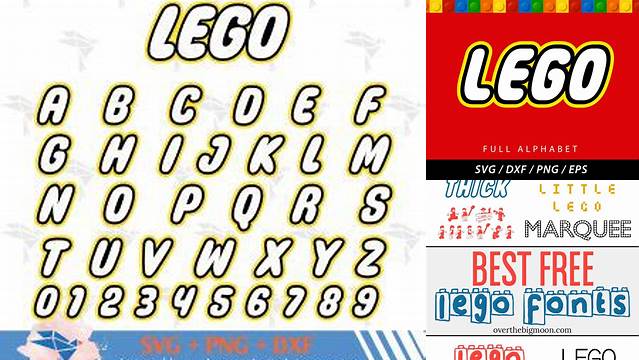
Lego Font SVG: Your Ultimate Guide
Unveiling the Magic of Lego Font SVG Files
Hey guys! Ever scrolled through your feed and spotted those instantly recognizable LEGO builds or creations? You know, the ones that scream 'fun' and 'creativity'? A big part of that visual appeal often comes down to the typography used, and when we talk about that classic LEGO look, we're often thinking about the Lego font SVG. Now, SVG, or Scalable Vector Graphics, is a super cool format for images. Unlike regular pixel-based images (like JPEGs or PNGs), SVGs are based on mathematical equations. This means you can scale them up or down to any size without losing a single bit of quality. Pretty neat, right? This makes Lego font SVG files incredibly versatile for all sorts of projects. Whether you're designing a custom t-shirt, crafting a birthday invitation, building a personal website, or even creating a fan-made LEGO manual, having access to these high-quality, scalable fonts is a game-changer. You're not limited by resolution; your designs will look crisp and clean whether they're tiny icons or massive banners. So, in this ultimate guide, we're diving deep into everything Lego font SVG, from where to find them to how you can best utilize them for your creative endeavors. Get ready to add that iconic LEGO charm to your projects!
The Iconic LEGO Typography: A Closer Look
Let's talk about what makes the LEGO font so darn special, guys. It’s not just any old typeface; it's a huge part of the brand's identity, instantly evoking feelings of childhood, play, and boundless imagination. The original LEGO typeface, often referred to as LEGO Type, has a very distinctive look. It's bold, slightly rounded, and has this incredibly friendly and approachable feel. Think about those classic LEGO instruction booklets or the packaging you grew up with – that's the font we're talking about! When people search for 'Lego font SVG,' they're usually looking for digital versions of this iconic style that they can use in their own projects. The beauty of using an SVG format for this font is, as we touched upon, its scalability. This means that whether you're using it for a small logo on a digital design or printing it large on a poster, the lines stay sharp, and the characters remain perfectly formed. It’s this consistency and visual recognition that makes the LEGO font so powerful. It taps into our collective nostalgia and creates an immediate connection. So, when you're aiming for that authentic LEGO vibe in your designs, finding a high-quality Lego font SVG is your first step to capturing that magic. It’s more than just letters; it’s a symbol of creativity and fun.
Why SVG is King for Lego Font Usage
So, why all the fuss about using Lego font SVG files specifically? It boils down to the technical advantages that SVG format offers, which are particularly beneficial when dealing with iconic and potentially complex letterforms like the LEGO font. Unlike raster images (like JPG or PNG) which are made up of pixels, SVGs are vector-based. This means they are defined by mathematical equations describing lines, curves, and shapes. What’s the big deal? Well, it allows you to resize them infinitely without any loss of quality. Imagine you download a Lego font SVG for your project. You can make it as small as an icon for a website button, and it will look perfectly sharp. Then, you can blow it up to cover an entire billboard, and it will still look just as crisp. No pixelation, no blurriness – just clean, sharp edges every single time. This is absolutely crucial for branding and design consistency. Furthermore, SVG files are typically smaller in file size compared to high-resolution raster images, making them load faster on websites. They are also easily editable with vector graphics software like Adobe Illustrator or Inkscape, allowing you to tweak colors, sizes, and even modify individual letter elements if needed (though always be mindful of copyright when using branded fonts!). For anyone serious about incorporating that classic LEGO aesthetic into their digital or print work, understanding the power of the Lego font SVG format is key to achieving professional and scalable results. It's the smart choice for modern design.
Finding Authentic Lego Font SVG Resources Online
Alright, guys, you're probably wondering, 'Where on earth do I get my hands on these awesome Lego font SVG files?' It's a common question, and the truth is, finding official LEGO fonts in SVG format for free public use can be a bit tricky due to trademark and licensing reasons. LEGO, like most major brands, protects its intellectual property. However, there are several avenues you can explore to get that LEGO-inspired look. Many talented graphic designers create and share LEGO-style fonts, often available as SVG downloads. Websites dedicated to free font resources, as well as marketplaces like Etsy or Creative Market, are great places to start your search. Just type in 'LEGO style font SVG' or 'building block font SVG' and see what pops up! You might find fonts that are heavily inspired by the official LEGO typeface, offering a very similar aesthetic. Always pay attention to the licensing terms associated with these unofficial fonts. Some might be free for personal use only, while others may require a purchase or attribution for commercial projects. Keep an eye out for fan-made compilations or communities where designers share resources. Remember, while these aren't official LEGO products, they can provide that distinctive, playful vibe you're looking for in your Lego font SVG projects. Do your due diligence, check the licenses, and you'll likely find a fantastic option to bring your creative ideas to life!
Creating Your Own Lego-Style Font in SVG
Feeling inspired and want to try your hand at crafting your own unique building block letters? That's awesome, guys! Creating your own Lego font SVG can be a super rewarding experience, especially if you want something completely original or tailored precisely to your project. The process usually involves using vector graphics software, with Adobe Illustrator being the industry standard, but free alternatives like Inkscape work wonders too. Start by sketching out your letterforms. Think about the classic LEGO style: bold, clean lines, slightly rounded corners, and a solid, blocky appearance. You'll want to maintain consistency across all letters. Once you have your designs, you'll translate them into vector shapes within your software. Use tools like the pen tool to draw precise paths, and then fill them to create the solid letterforms. Pay attention to stroke weights and corner styles to achieve that distinct LEGO feel. The real magic happens when you save each letter as an individual SVG file. This allows you to import them easily into other projects or even combine them to form words and phrases. You can experiment with different color palettes, add subtle textures, or even create variations of the letters. While this takes time and practice, mastering the creation of your own Lego font SVG gives you ultimate creative control and ensures you have a unique asset that truly stands out. Plus, it’s a fantastic way to hone your digital art skills!
Best Practices for Using Lego Font SVG in Designs
Alright, let's talk about making your Lego font SVG pop in your designs, guys. Once you've got your hands on these awesome vector files, how do you use them effectively? First off, consistency is key. If you're using a LEGO-style font, stick to it throughout your project for a cohesive look. Don't mix it with too many other contrasting fonts, or it might lose its impact. Think about the classic LEGO aesthetic: bold, clear, and playful. Use colors that complement this vibe – bright, primary colors often work wonders, but don't be afraid to get creative! Remember that SVGs are scalable, so feel free to resize them to perfectly fit your layout. Use them for headings, logos, call-to-action buttons, or even decorative elements. Don't overdo it, though! Sometimes, less is more. A well-placed LEGO-style font can grab attention, but an entire page saturated with it might become overwhelming. Consider the context of your design. Is it for a kids' party invitation? A fan blog? A retro gaming site? Tailor your usage accordingly. Also, when working with SVG files, ensure you understand the software you're using. Basic knowledge of vector editing can help you adjust colors or spacing if needed. Finally, always be mindful of the source and license of your Lego font SVG. Ensure you have the right to use it for your intended purpose, especially for commercial projects. Following these best practices will ensure your designs look professional, impactful, and truly capture that beloved LEGO spirit.
Incorporating Lego Font SVG into Digital Projects
So you've got your awesome Lego font SVG files, and you're ready to level up your digital creations, right? Let's dive into how you can seamlessly integrate these versatile graphics into your online world. Websites are a prime candidate! You can use LEGO-style fonts for your main headings to give your site an immediate, playful personality. Imagine a blog about toys or creative hobbies – a bold, LEGO-inspired font for the title instantly sets the tone. Because SVGs are scalable, they look fantastic on any screen size, from desktops to smartphones, ensuring your design remains crisp and professional everywhere. Social media is another huge win. Craft eye-catching banners for your profiles or create engaging posts with text overlays that use that iconic blocky font. Think about creating unique Instagram story graphics or Facebook cover photos. For presentations, using a Lego font SVG for your slide titles or key bullet points can make your content more visually appealing and memorable. It injects a dose of fun into what might otherwise be a dry topic. Even in video editing, you can import SVG text elements for titles or lower thirds, ensuring sharp, professional-looking text that scales perfectly for different video resolutions. Remember, the scalability and crispness of SVGs make them ideal for any digital application where clear, impactful typography is essential. Get creative, guys, and let that LEGO charm shine through!
Printing with Lego Font SVG: Tips for High Quality
Guys, you've got your fantastic Lego font SVG files, and now you're thinking about bringing them into the physical world through printing. Awesome! The beauty of SVG format really shines here because, as we've hammered home, they are resolution-independent. This means you can scale them up to enormous sizes without losing any sharpness, which is perfect for print projects like posters, banners, or even large vinyl decals. When preparing your design for print, ensure your SVG is correctly sized in your vector software to match your desired print dimensions. Double-check that all elements, including the font, are converted to outlines or paths if your print service requires it – this ensures compatibility. For color, be mindful of the printing process. While your SVG might look great on screen, CMYK color profiles used in printing can sometimes shift colors slightly compared to RGB. If you're aiming for specific LEGO colors, it might be worth checking CMYK equivalents or discussing color matching with your print provider. For smaller items like t-shirts, mugs, or stickers, the SVG's scalability means you can achieve incredibly sharp, vibrant prints. Just send your high-quality SVG file to your chosen printer, and they can scale it precisely for the product. The result? Crisp, clean text that looks professional and captures that unmistakable LEGO vibe. So go ahead, print big or small; your Lego font SVG will look stellar!
Exploring Lego Font Alternatives and Similar Styles
While the official LEGO font is iconic, sometimes you need alternatives or variations, especially if you're working with unofficial Lego font SVG resources or seeking a slightly different vibe. Many designers have created fonts inspired by the LEGO style, offering a similar blocky, playful aesthetic but with their own unique twists. These alternatives can be fantastic for avoiding potential copyright issues or simply for achieving a slightly different look. You might find fonts with slightly more rounded edges, different letter proportions, or unique character details. Search terms like 'building block font,' 'kids font,' 'toy font,' or 'pixel font' can uncover a treasure trove of options that capture a similar spirit. Some might be free for personal use, while others are premium. Websites specializing in font discovery are your best bet here. When evaluating alternatives, consider how closely they mimic the LEGO feel you're after. Do they have that bold, legible quality? Do they convey a sense of fun and creativity? You might also explore stencil fonts, which share the blocky, constructed feel, or even some retro pixel fonts that evoke a similar nostalgic charm. Ultimately, the goal is to find a Lego font SVG or a close alternative that perfectly suits your project's needs while maintaining that playful, imaginative essence we all associate with LEGO. Don't be afraid to experiment, guys!
Final Thoughts: Mastering Lego Font SVG for Your Creative Projects
So, there you have it, guys! We've journeyed through the exciting world of Lego font SVG, uncovering its versatility, applications, and the nuances of using it effectively. From understanding the power of the SVG format for scalability and quality, to navigating the sources for these iconic fonts, and even exploring how to create your own, we've covered a lot of ground. Remember the importance of checking licenses, optimizing for web performance, and leveraging these fonts across digital and print projects. Whether you're a designer, a hobbyist, a fan creator, or an educator, incorporating that distinct LEGO-inspired typography can add a unique spark to your work. It’s about harnessing that universal appeal of building, creativity, and fun. Keep experimenting, stay mindful of the legalities, and most importantly, have fun bringing your ideas to life with the bold, playful, and ever-scalable power of Lego font SVG. Happy building, and happy designing!